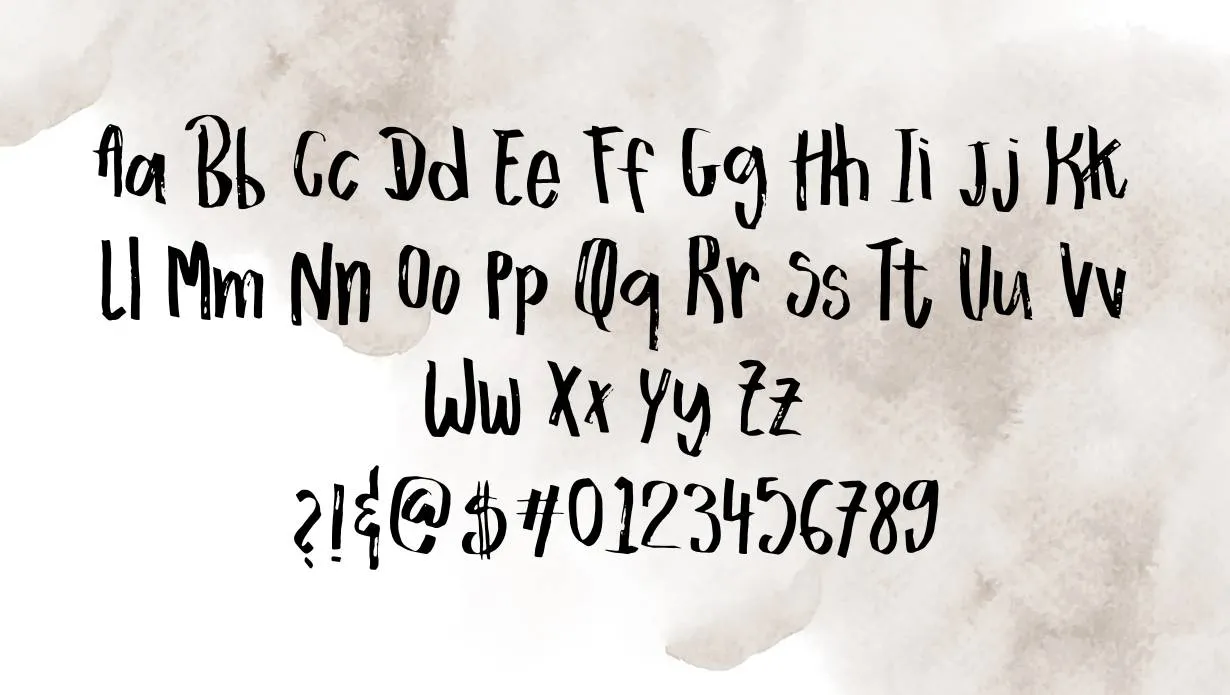
The Every Summer font encapsulates a relaxed and carefree vibe, often found in vacation-themed designs, beach posters, or projects aiming for a laid-back and fun look.
| Name | Every Summer Font |
| Designer | KlapauciusCo |
Its casual and whimsical style brings forth the essence of carefree summer days, making it perfect for designs seeking a vibrant and relaxed atmosphere. The unique texture of this typeface is a magnet for creators, and there is a selection of other fantastic typefaces, like french script MT font and Beauty Brand Font, for you to explore.